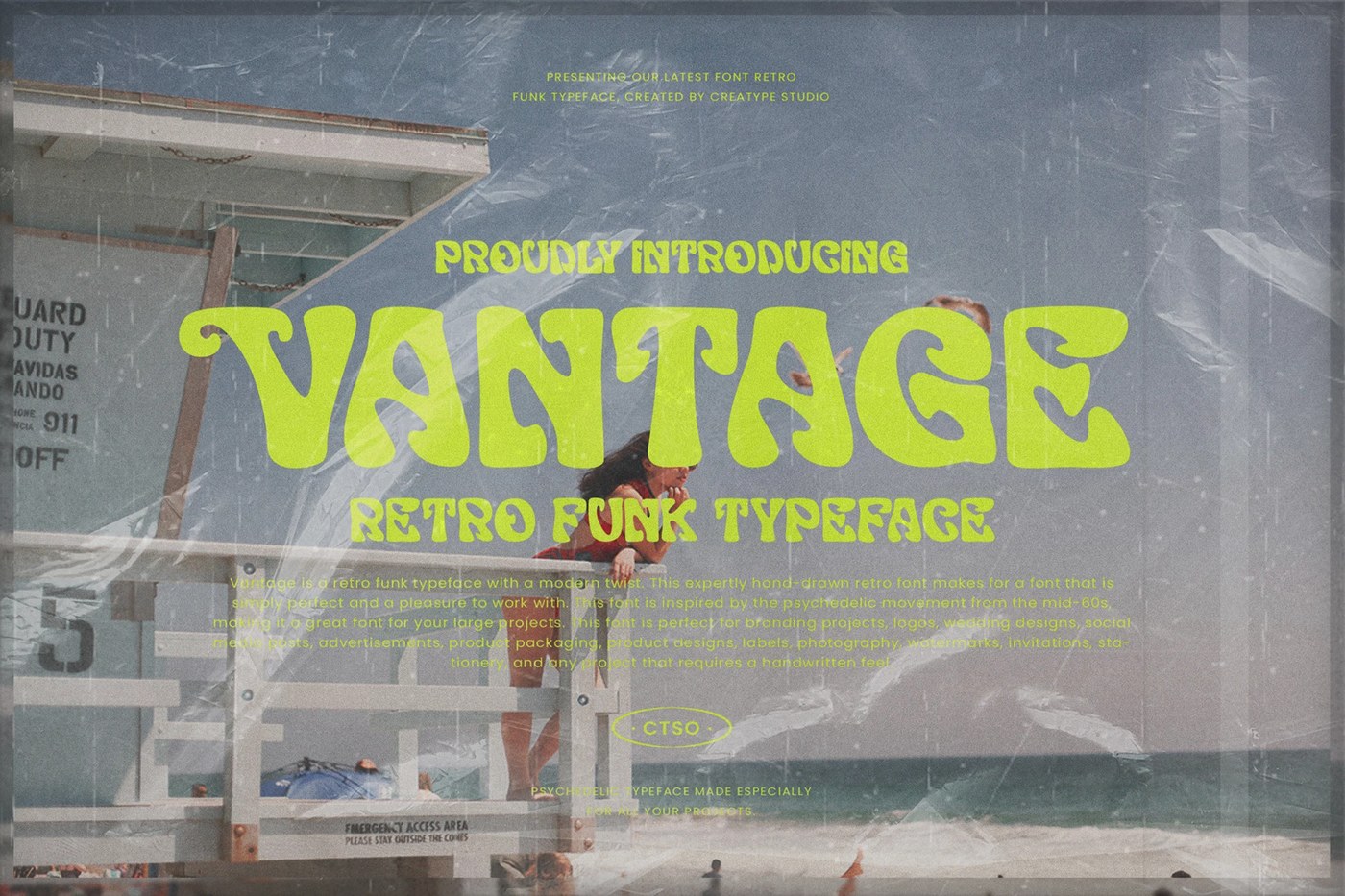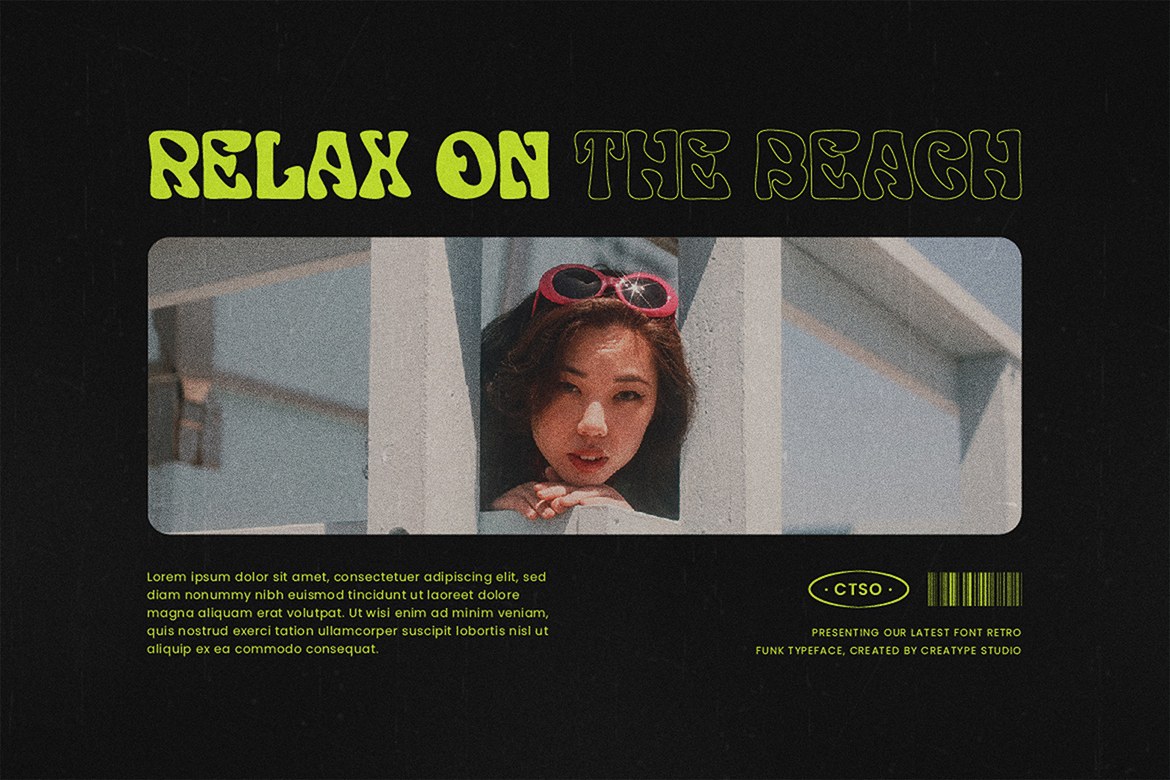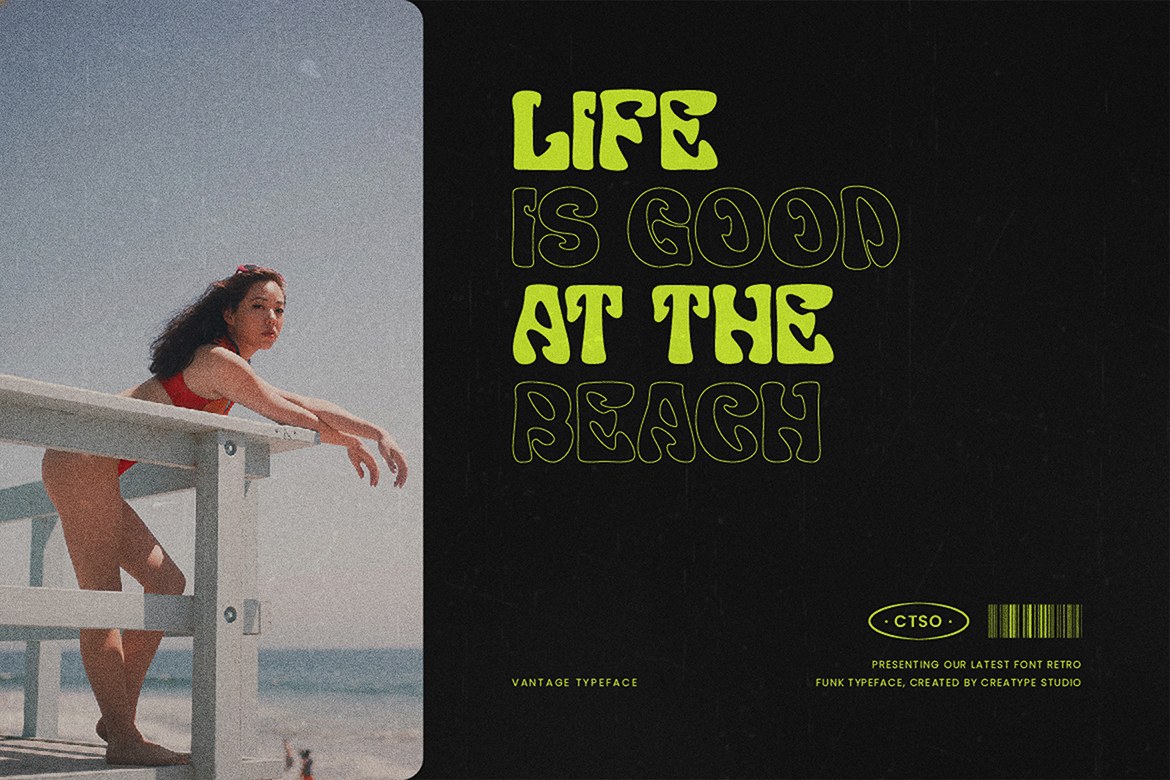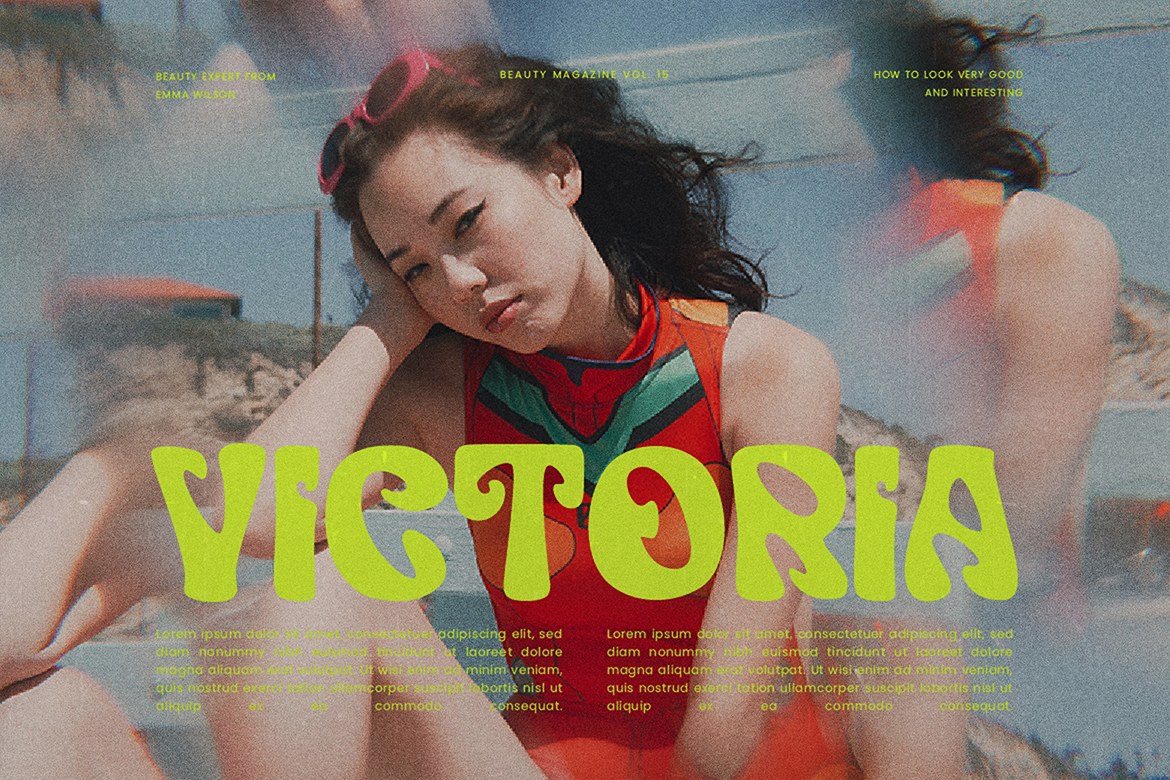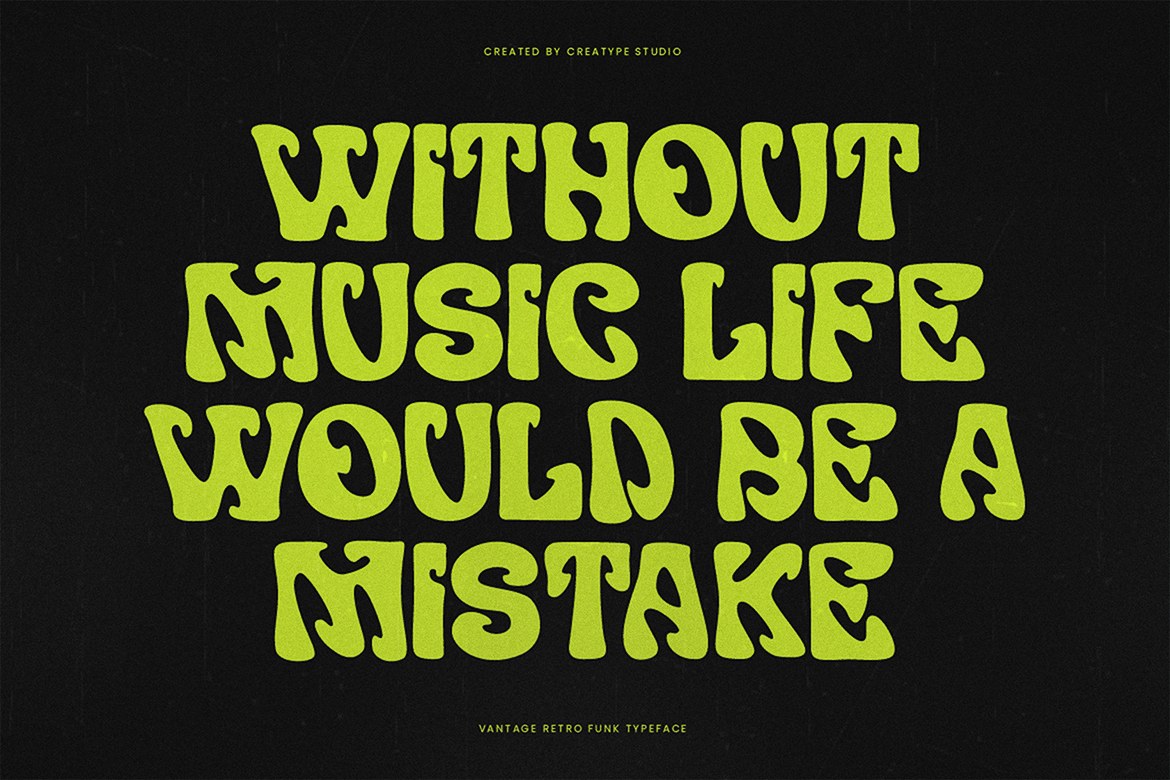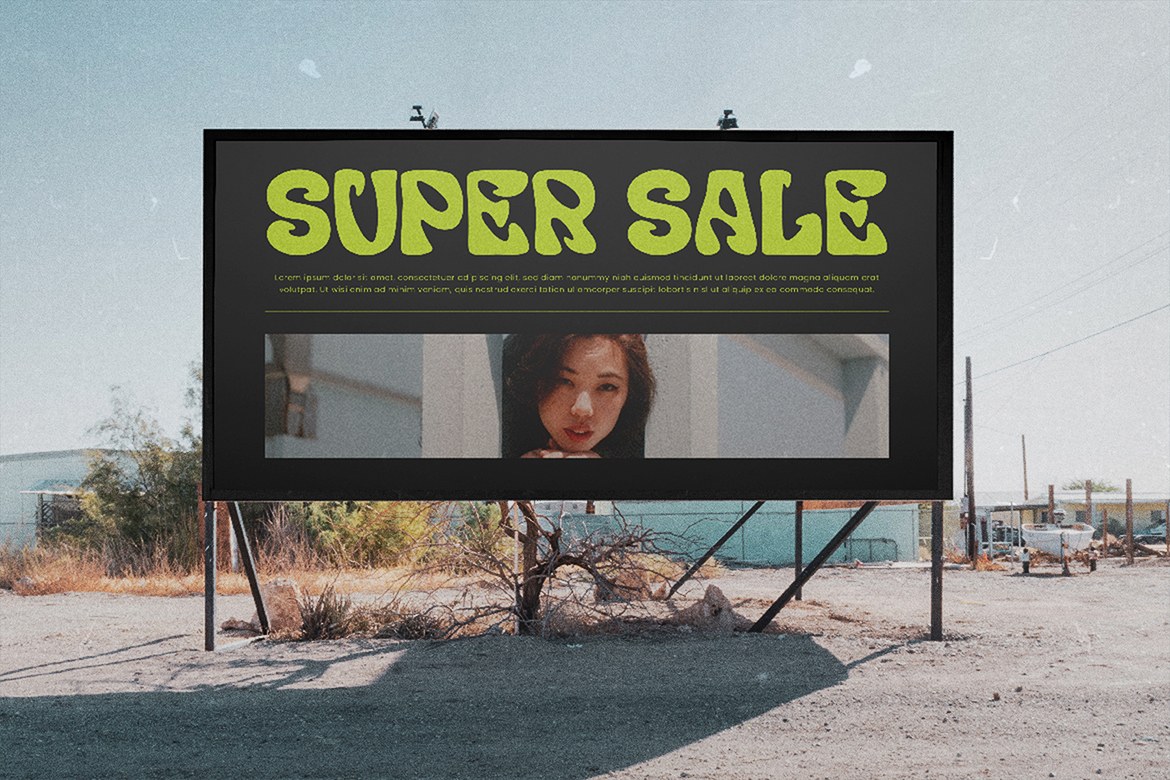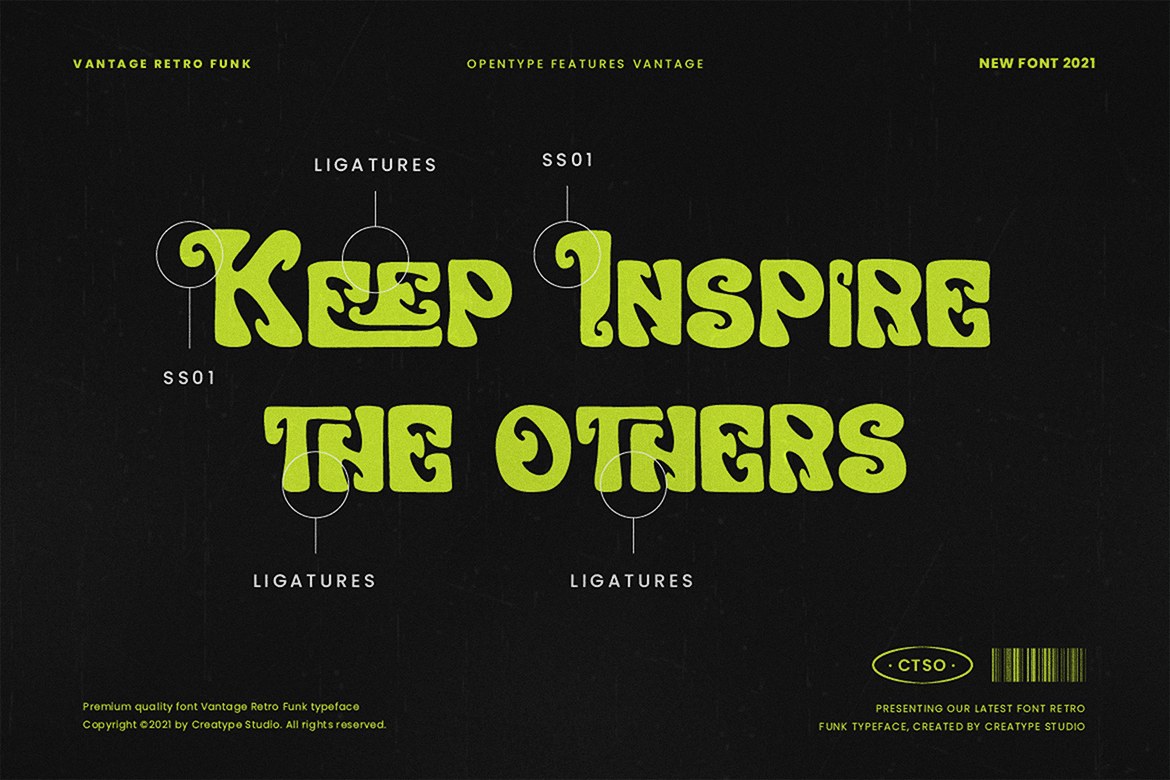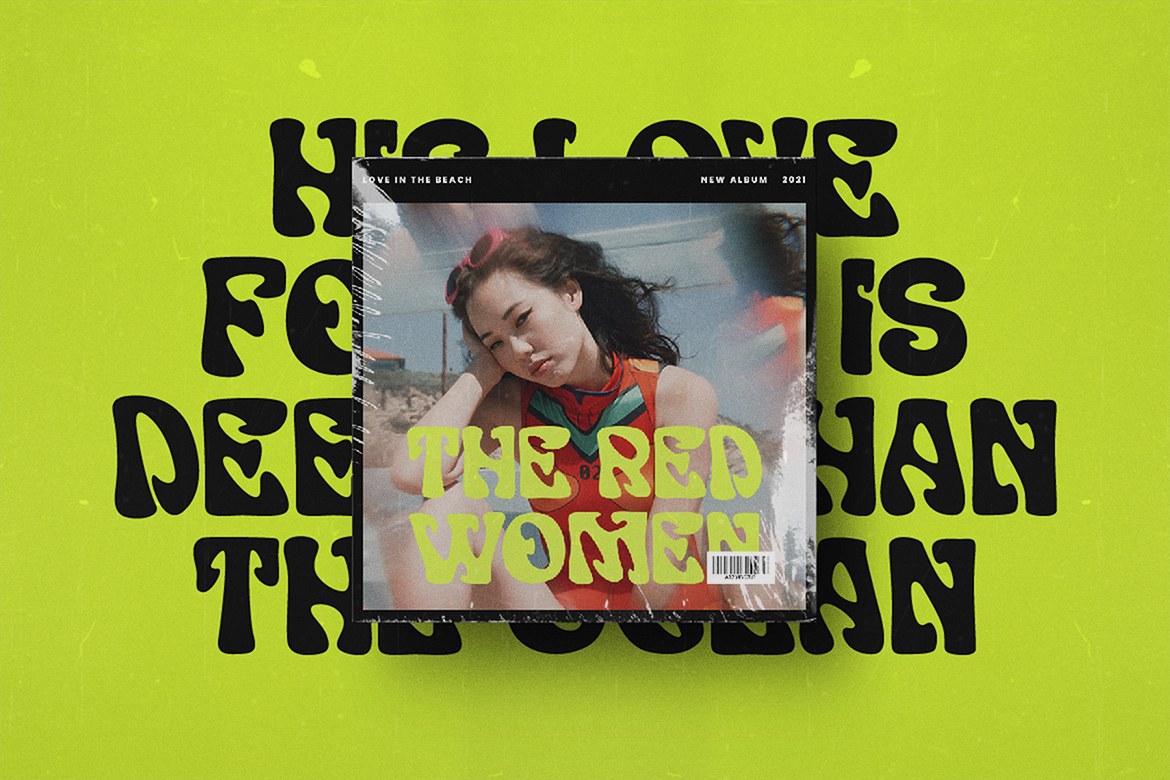
Vantage Free Font: Retro Funk Typeface with a Psychedelic Twist
Vantage free font features hand-drawn, retro-inspired, psychedelic-style display letterforms for modern branding projects.
This typeface captures the creative spirit of mid-60s counterculture movement. Expert hand-drawn details bring organic texture into every individual glyph shape. The character outlines present beautiful visual flow across large poster headlines. Bold strokes create immediate structural weight that feels heavy and grounded. This layout arrangement dictates strong compositional tension on the page. Negative spaces around the letterforms enhance readability in print applications. Tight letter-spacing locks the words together into a solid visual block. Strong geometric anchors preserve alignment across complex editorial layouts. Each curved line references vintage vinyl record covers and musical posters. The heavy weight contrasts with the subtle negative space inside letters.
Designing with Vantage Free Font
A disciplined typographic system scales across physical and digital platforms. Each glyph design adapts perfectly to modern screen environments and packaging. The underlying Swiss grid structure aligns these letterforms with strict geometric harmony. High contrast display weights pair beautifully with clean sans-serif text blocks. Tactile contrast emerges when print designers use heavy uncoated paper stock. Deep ink absorption on textured cardstock enhances the vintage style. The color palette relies on bold black ink on warm off-white background. This simple contrast allows the expressive letterforms to dominate the layout. Fine letter spacing adjustments ensure readability even in tight headlines.
Creatype Studio Gallery establishes a strong editorial context with this release. The typeface honors classic design history while serving contemporary functional needs. Designers can utilize these styles to make striking visual identities. This resource provides immense value for creative packaging and merchandising. Download this impressive typography asset to improve your graphic compositions. The design team successfully revives psychedelic art for contemporary audiences. It connects classic pop art with modern digital publishing standards. This vintage funk aesthetic remains highly relevant for merchandise branding. It offers a unique visual voice that stands out from neutral fonts.